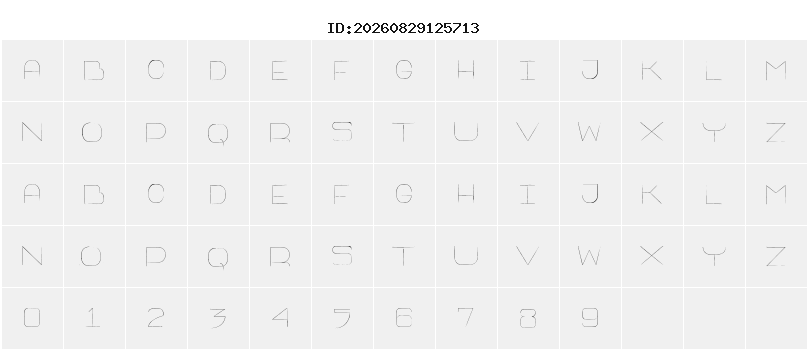
Thin Franq Preview
• Font Name: Thin Franq
• Full Font Name: Thin Franq
• Designer: Andrew2 Hart
About Thin Franq.ttf
Thin Franq.ttf is a modern, elegant sans-serif font designed for ultimate readability and visual harmony. Perfect for branding, headlines, web design, and print materials.